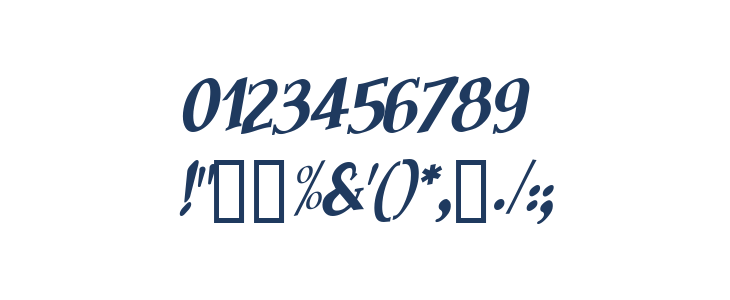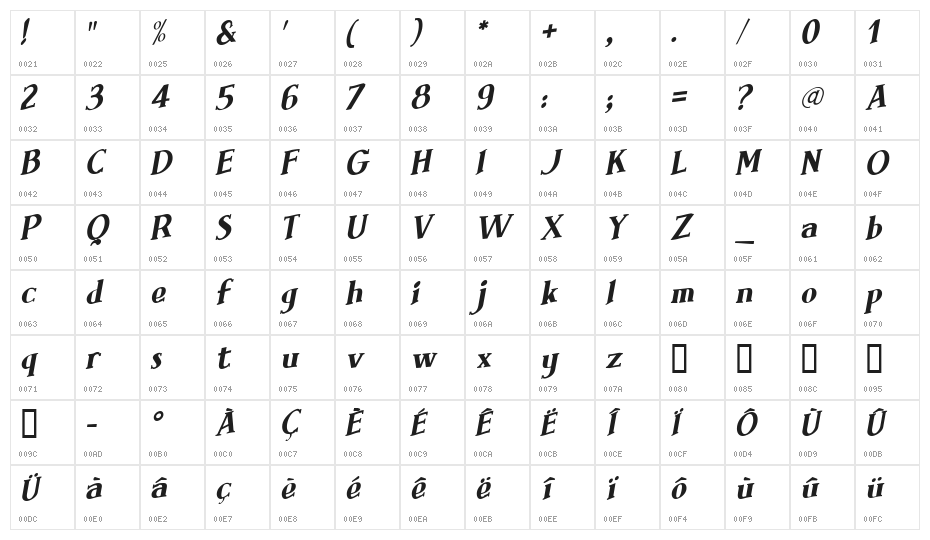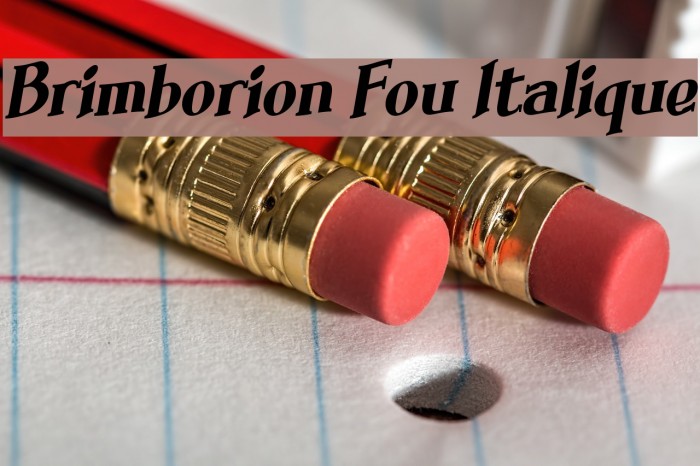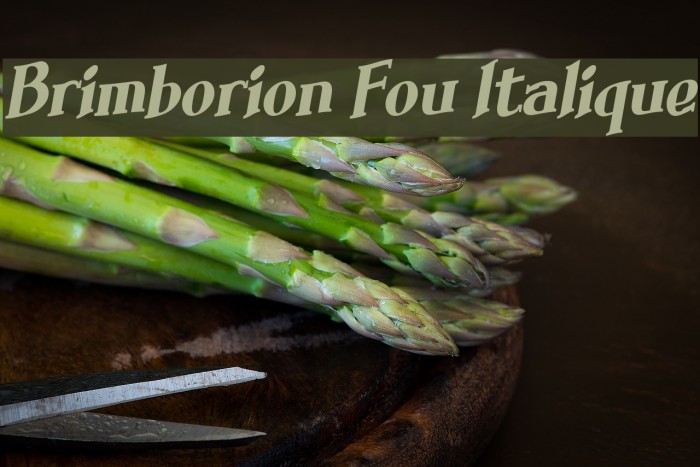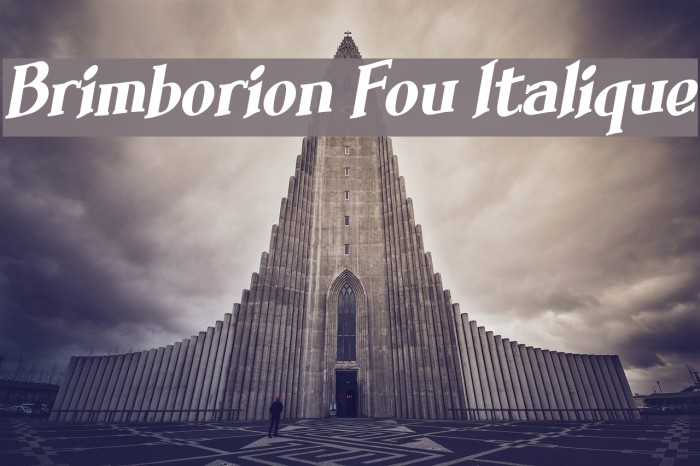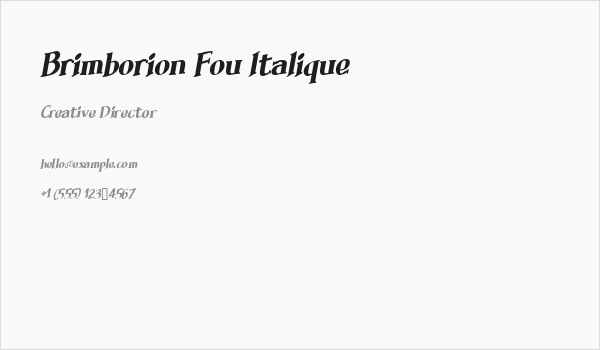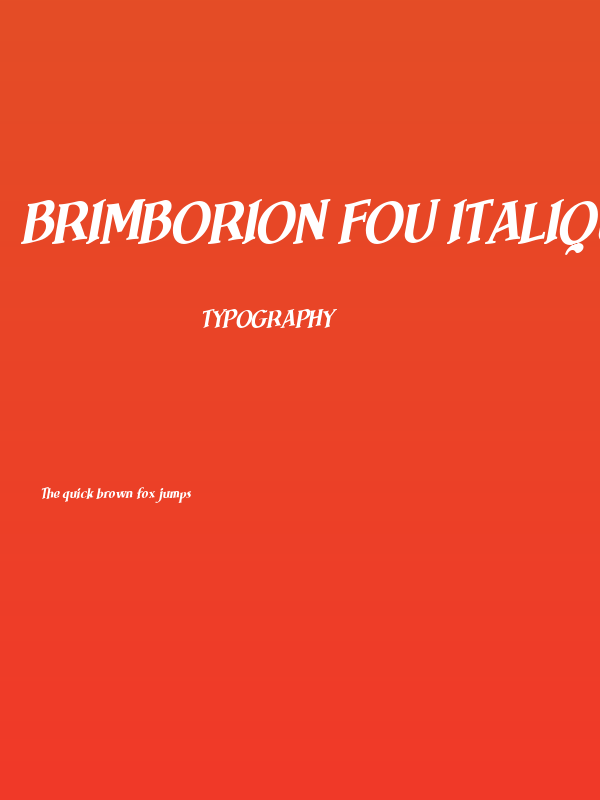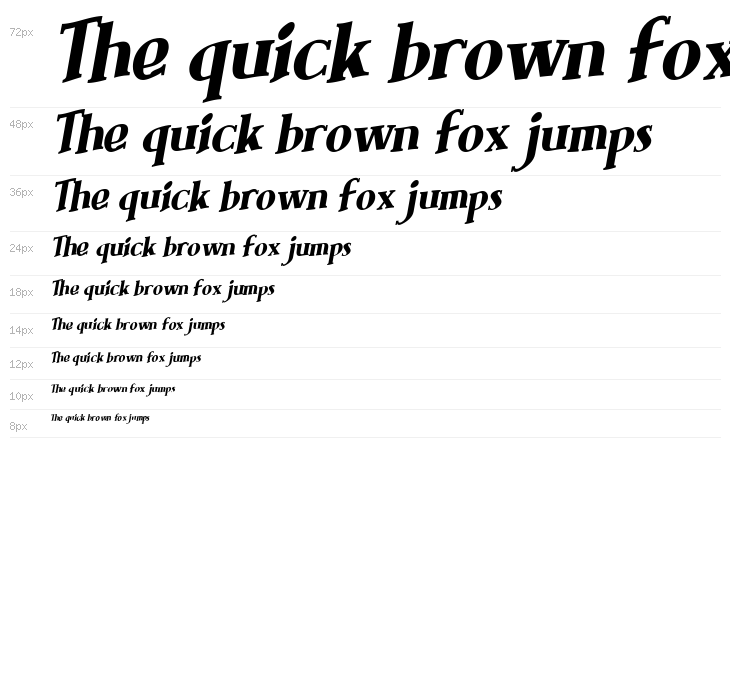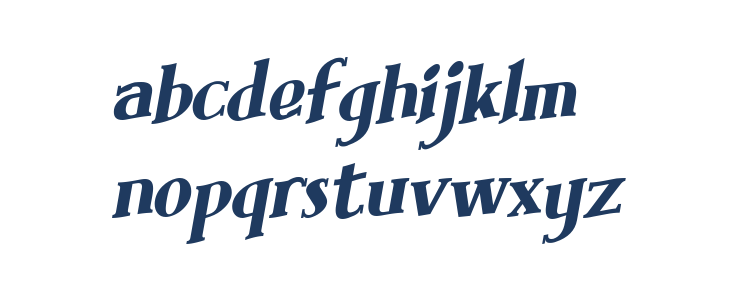
Brimborion Fou Italique Font
Brimborion Fou Italique Description
This font features a dynamic and expressive style with a pronounced italic slant, giving it a sense of movement and flair. The characters are bold and slightly condensed, with sharp, angular serifs that add a touch of elegance and sophistication. The uppercase letters are tall and commanding, while the lowercase letters maintain a consistent flow, enhancing readability. The numerals are distinct and well-proportioned, matching the overall aesthetic of the font. Special characters are crafted with the same attention to detail, ensuring a cohesive look across all glyphs. This font's unique style makes it suitable for projects that require a bold and artistic touch.
| Proposed Projects | Ideal for branding, headlines, posters, and artistic projects that require a bold statement. |